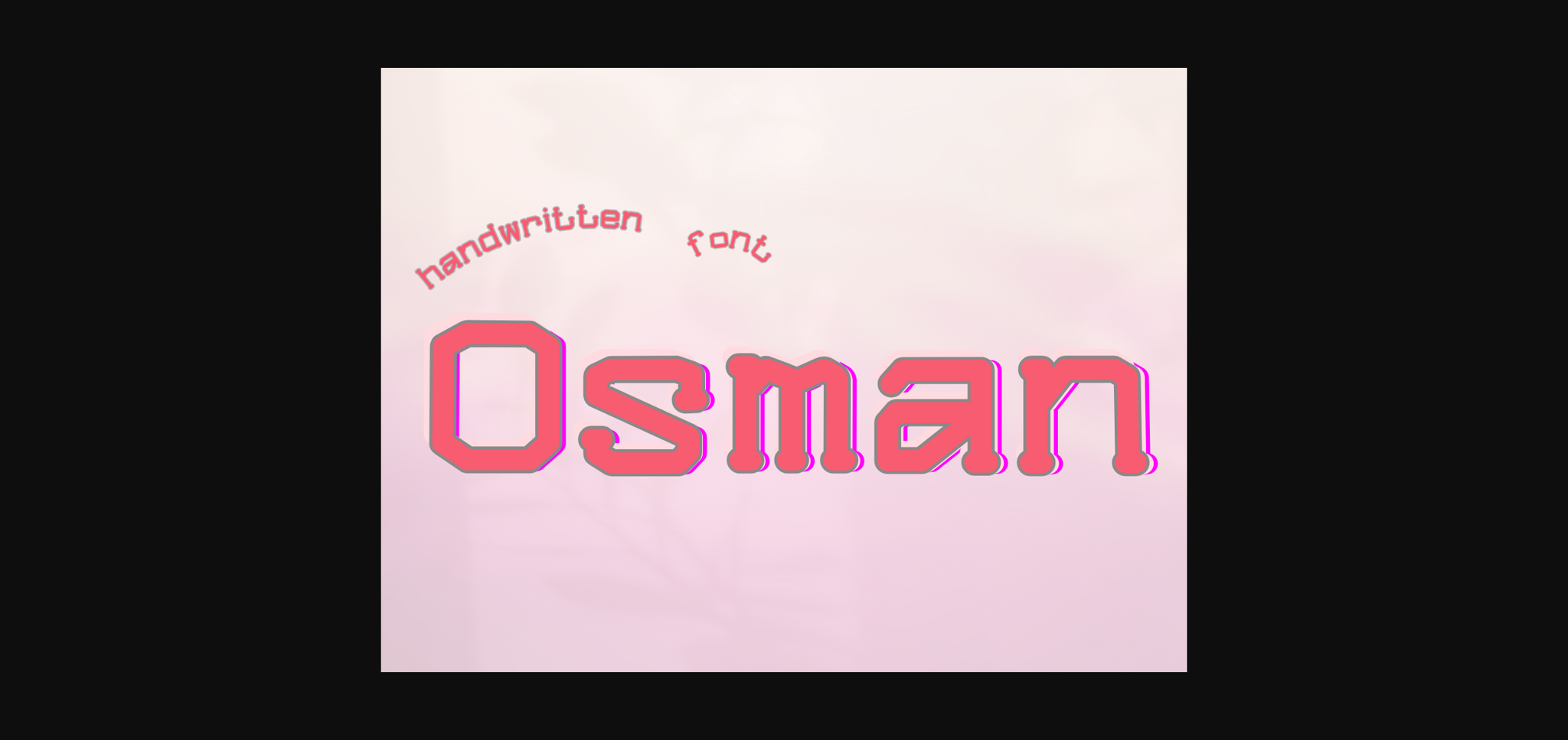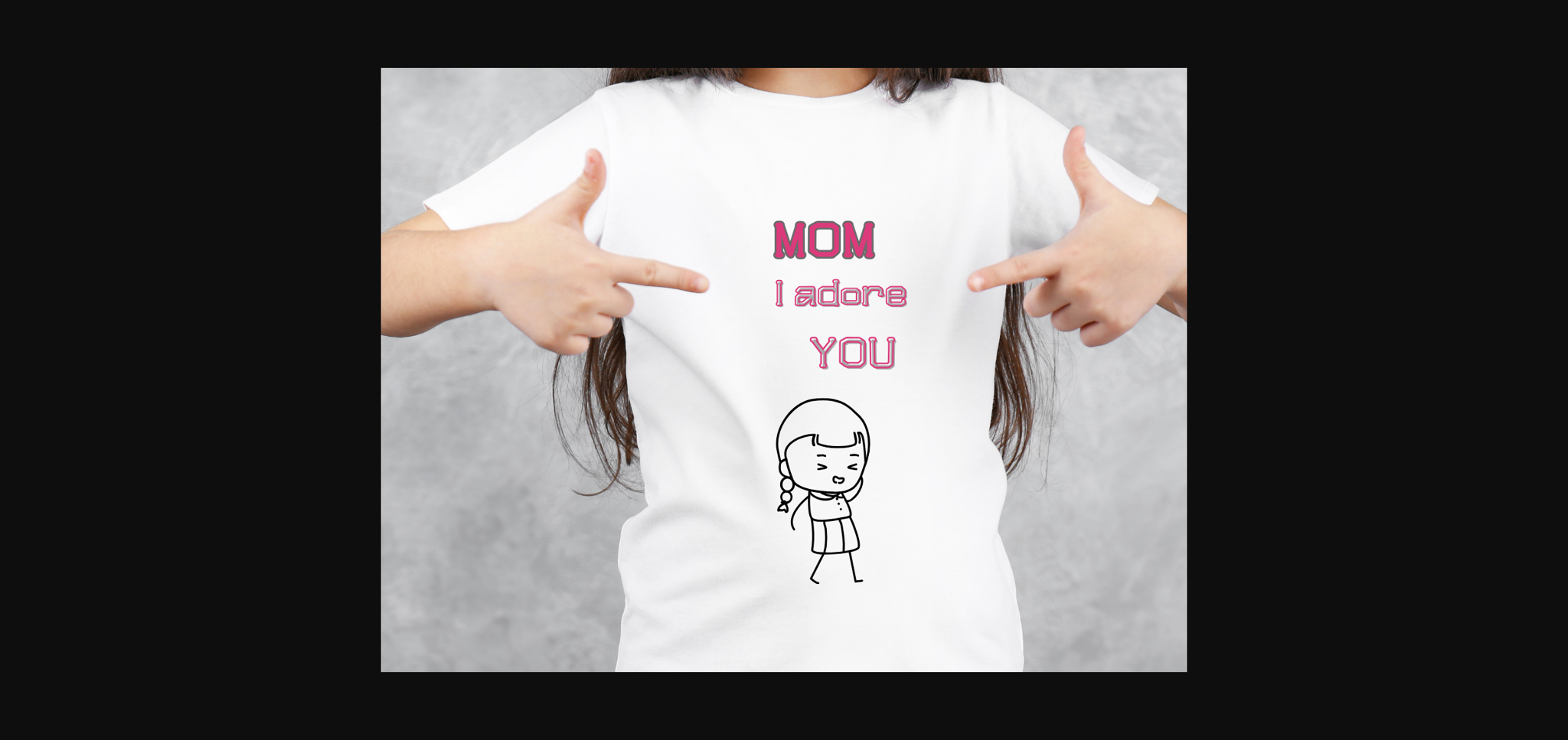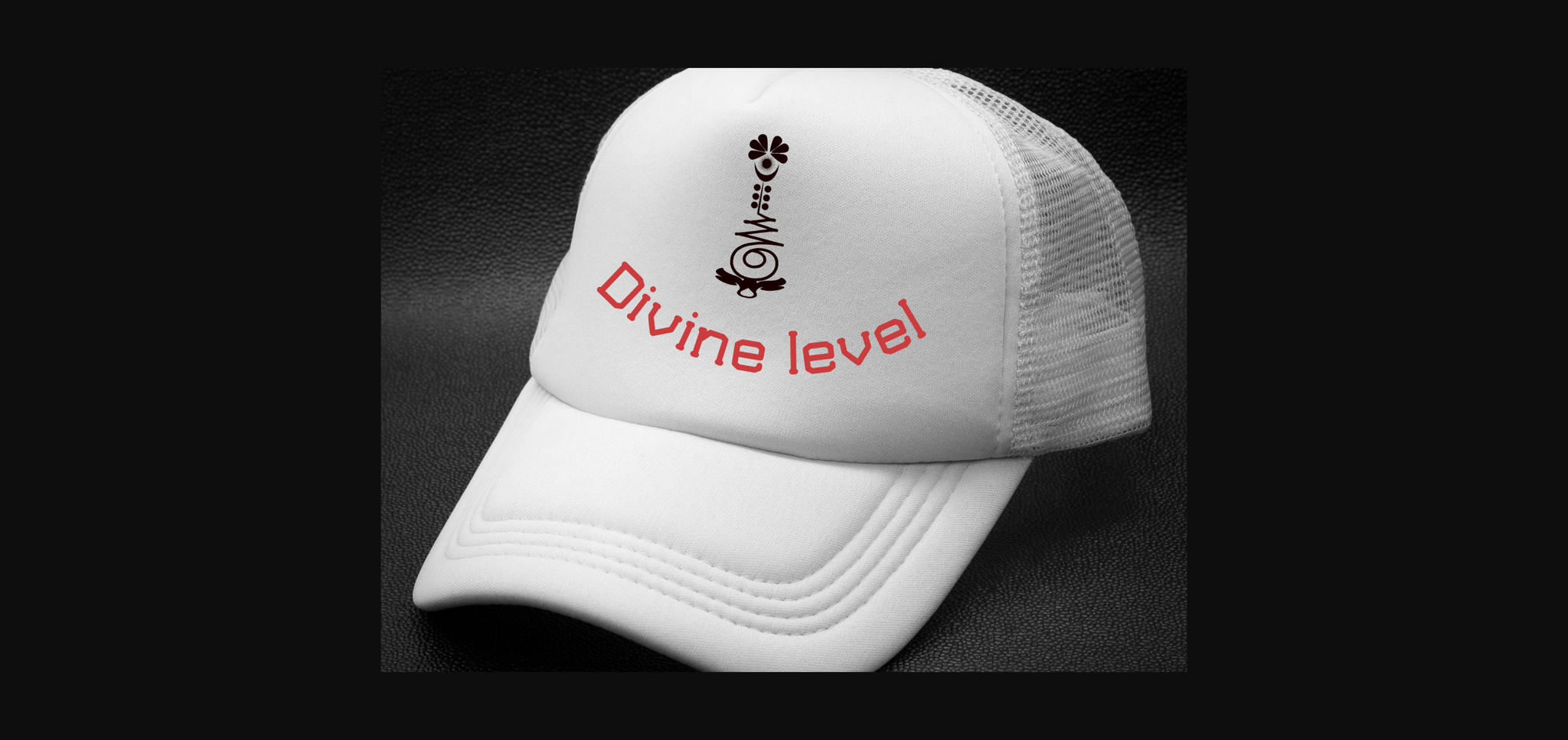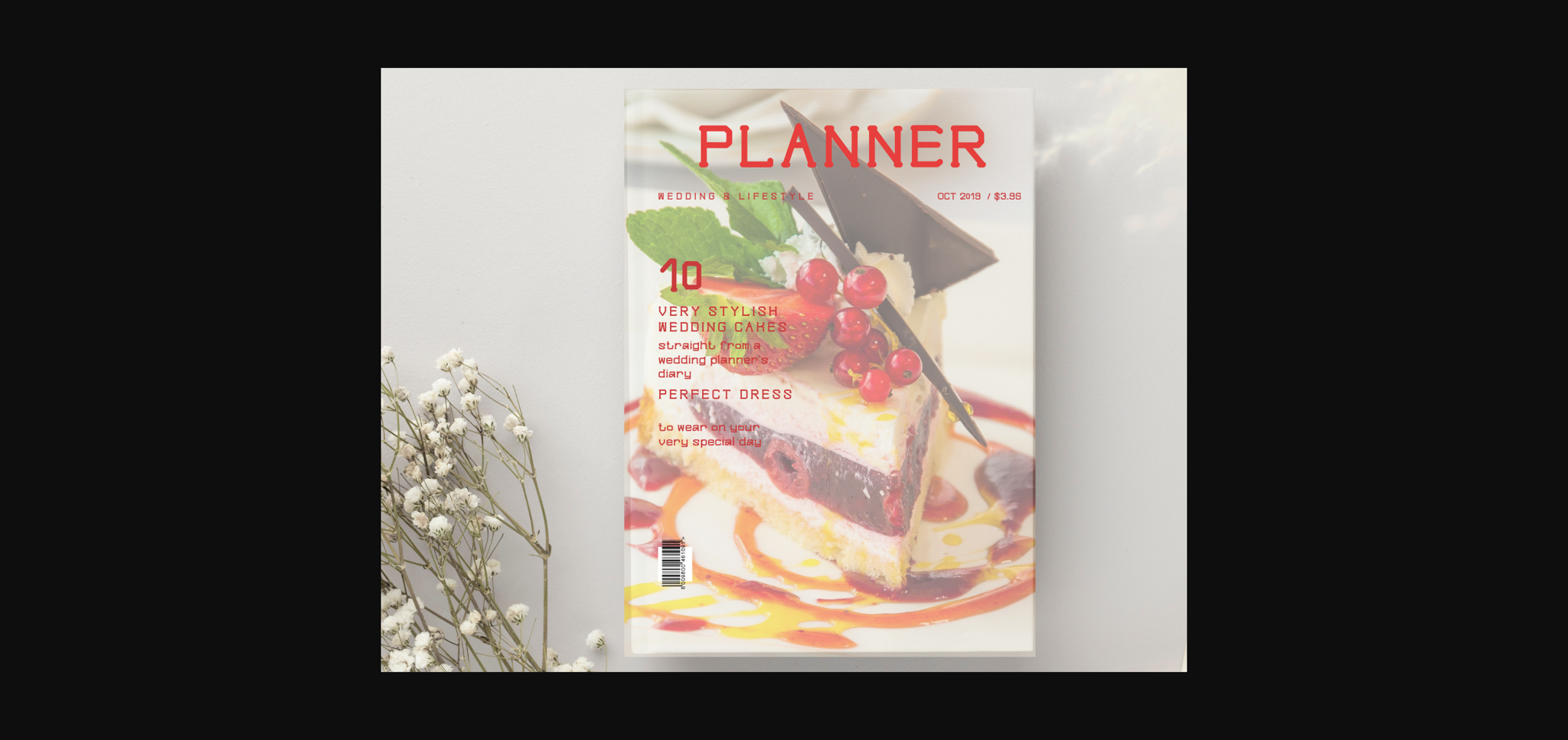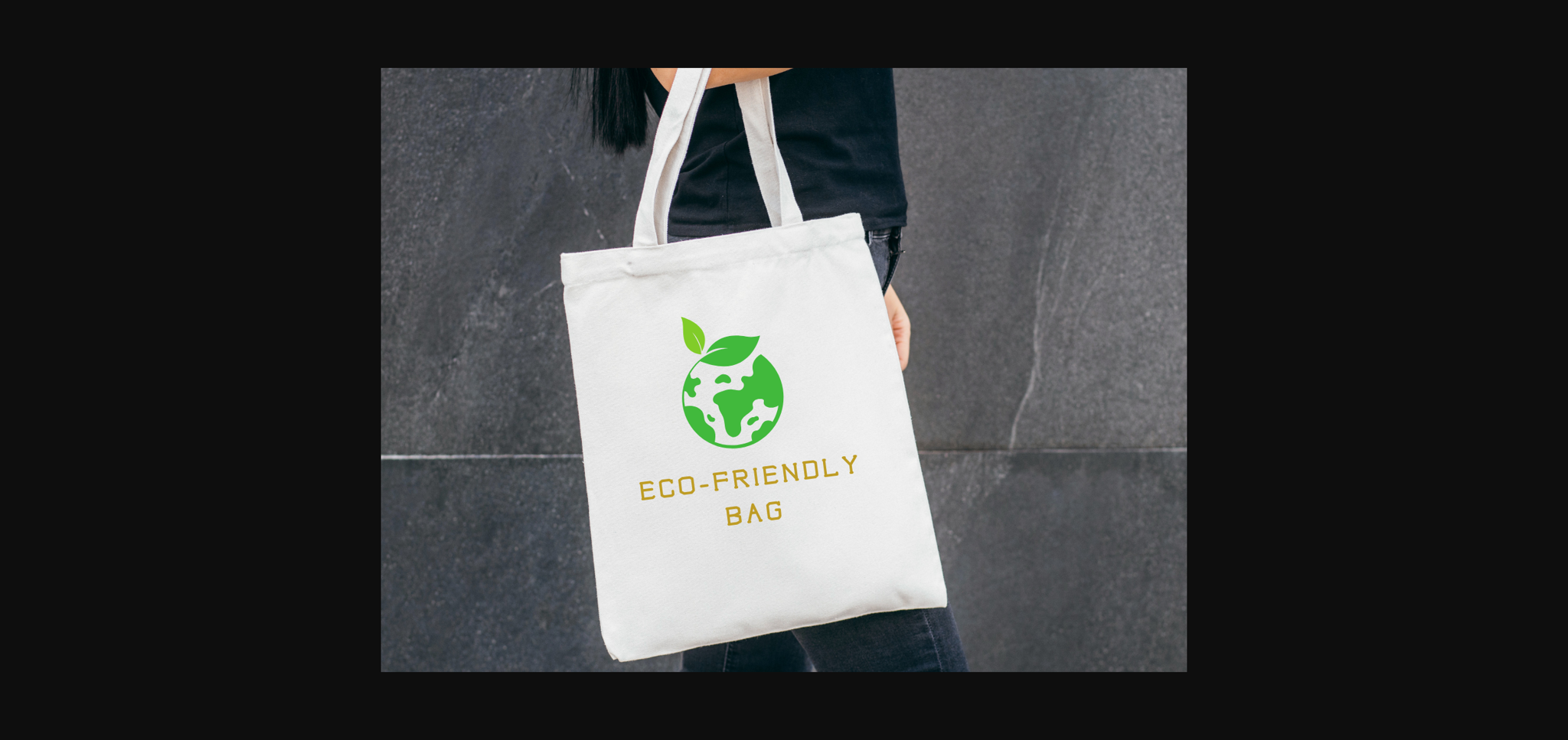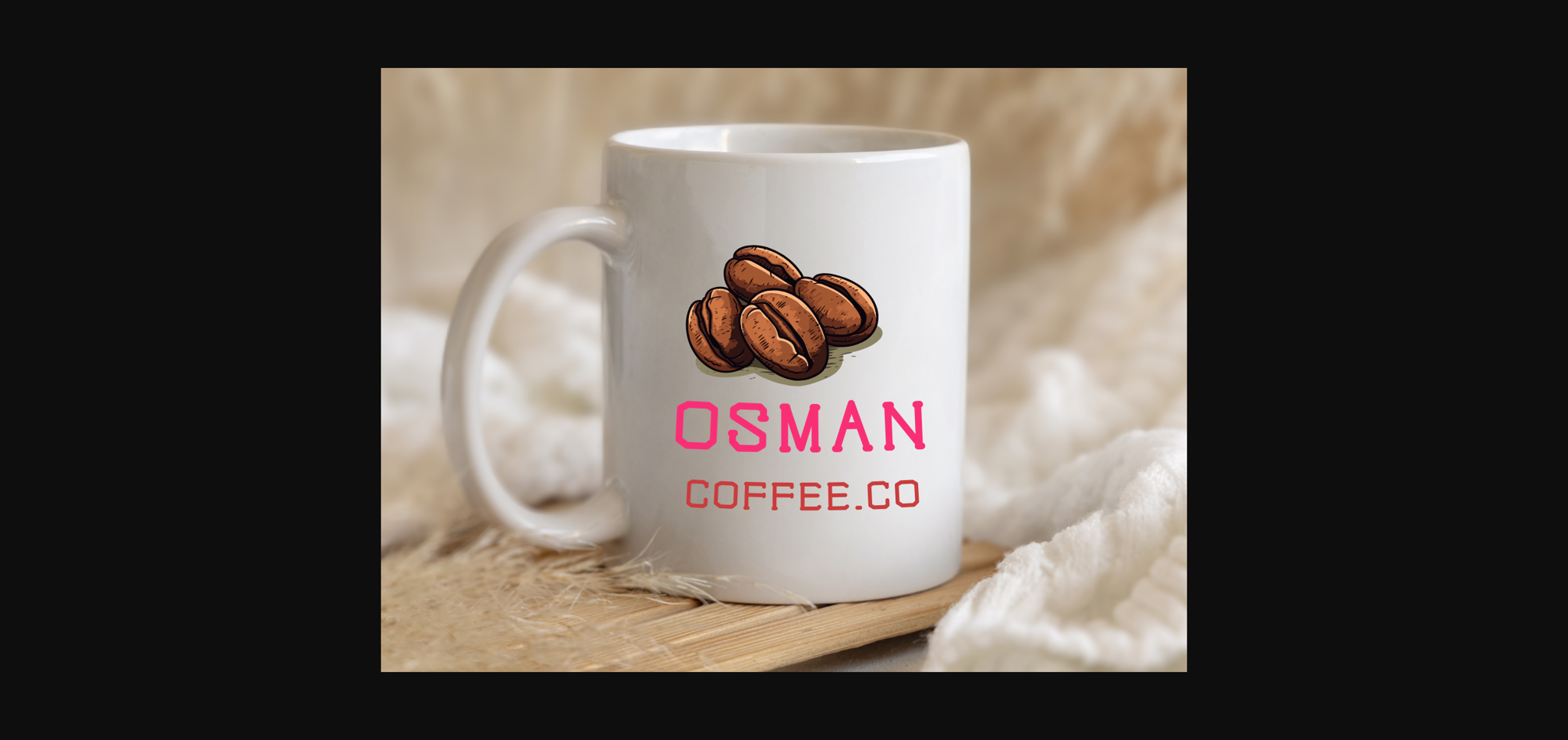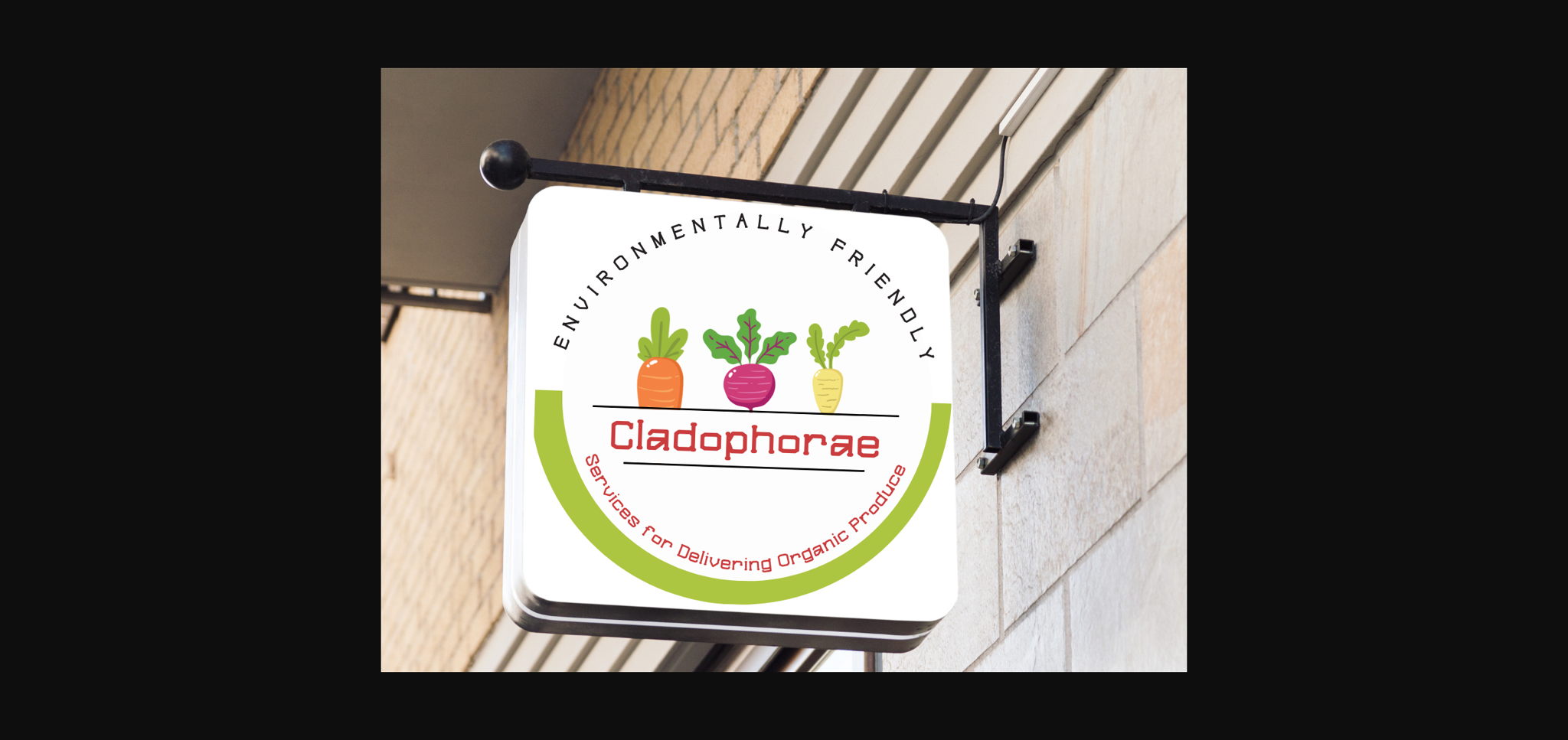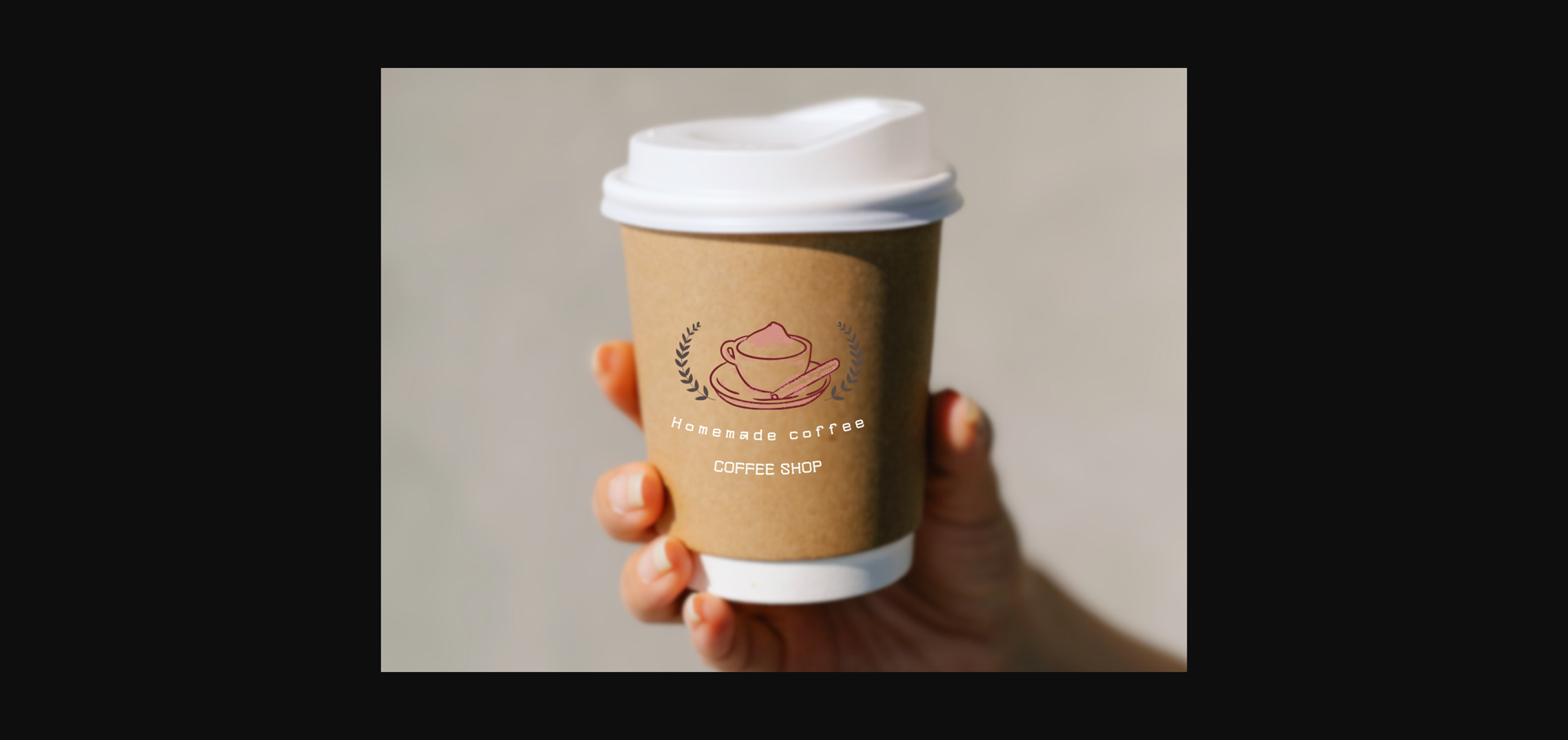
HomeSans Serif FontsOsman Font Sans Serif Fonts Osman Font FacebookXPinterestWhatsApp 1 of 11 ... Osman Font Poster 2... Osman Font Poster 3... Osman Font Poster 4... Osman Font Poster 5... Osman Font Poster 6... Osman Font Poster 7... Osman Font Poster 8... Osman Font Poster 9... Osman Font Poster 10... Osman Font Poster 11... About Osman Font Osman is a sweet and friendly handwritten font. It is suitable for use on logos, social media, cards, invitations and so much more. DOWNLOAD NOW People also explored Cutie Angel Font Cornpile Variable Happy Kern Font Golger Font Hey Girl Font Akiro Font Night Font Over Sweety Font Better Font 465 0 TagsOsmanOsman Font Previous articleSubmica FontNext articleConcentric Font LEAVE A REPLY Cancel reply Comment: Please enter your comment! Name:* Please enter your name here Email:* You have entered an incorrect email address! Please enter your email address here Website: Save my name, email, and website in this browser for the next time I comment. Personal Use Free Broodfath Personal Use Free Read more about this font Messages Personal Use Free Read more about this font Makcex Personal Use Free Read more about this font Twisty Girlz Personal Use Free Read more about this font BLOG Top 7 Google Fonts Alternatives for Faster and Privacy-Friendly Web Design (2025) Top 7 Google Fonts Alternatives for Faster and Privacy-Friendly Web Design (2025) When it comes to web typography, Google Fonts has long been the go-to... Best Fonts for T-Shirt Design – Top 2025 Picks Modern Sans-Serif Fonts That Brands Love in 2025 Elegant Wedding Invitation Fonts – Handwritten & Script Fonts